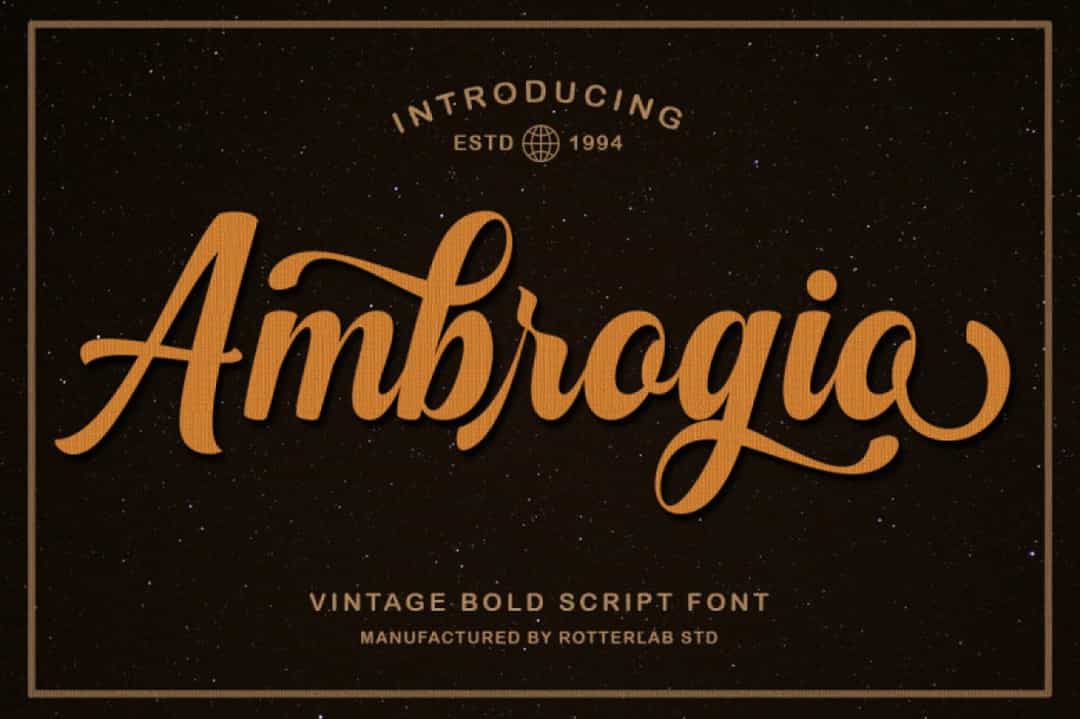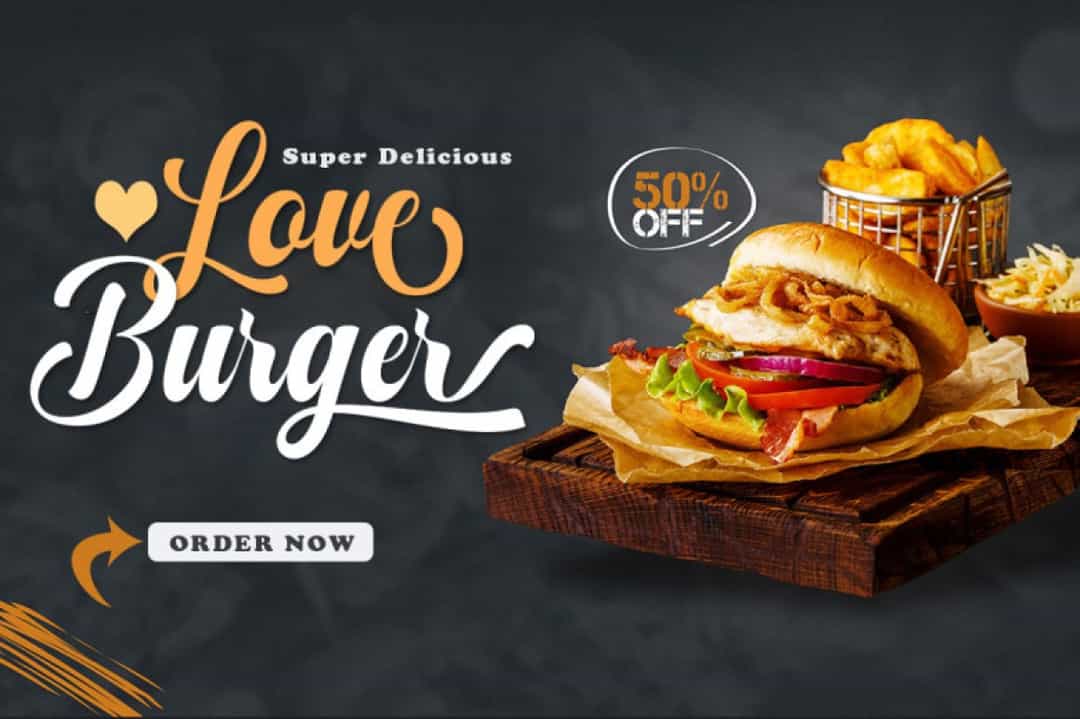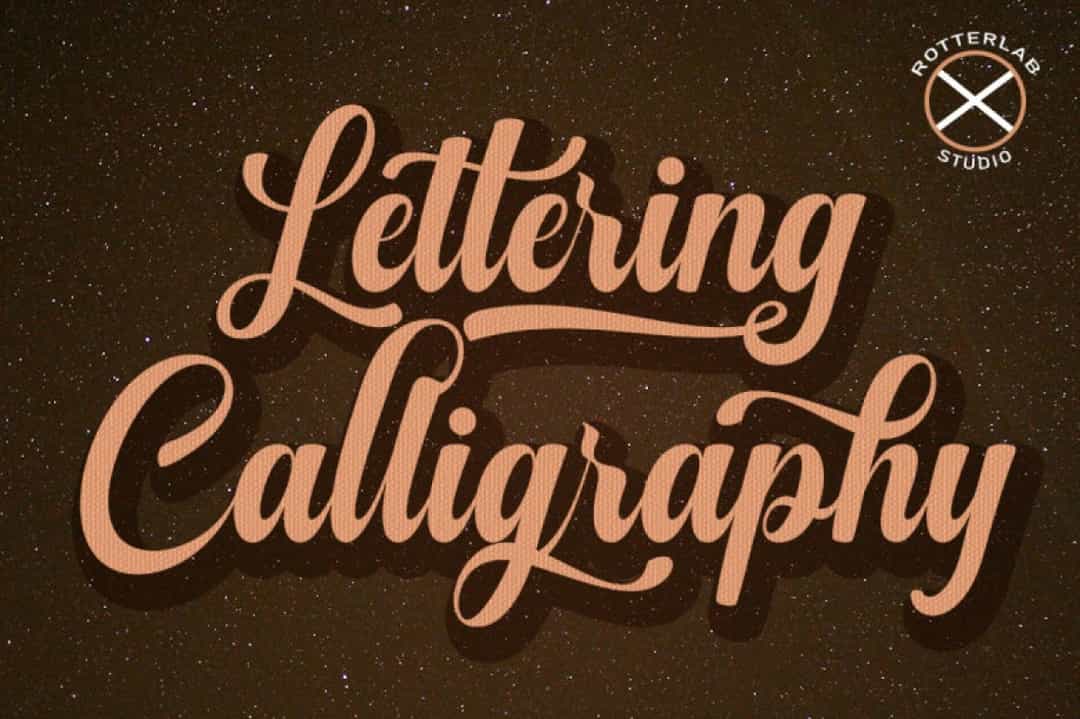
Ambrogio is a beautiful and bold calligraphy font designed to convey any message in an authentic, confident, and graceful manner. This font can enhance crafting projects such as cards, labels, branding initiatives and more.